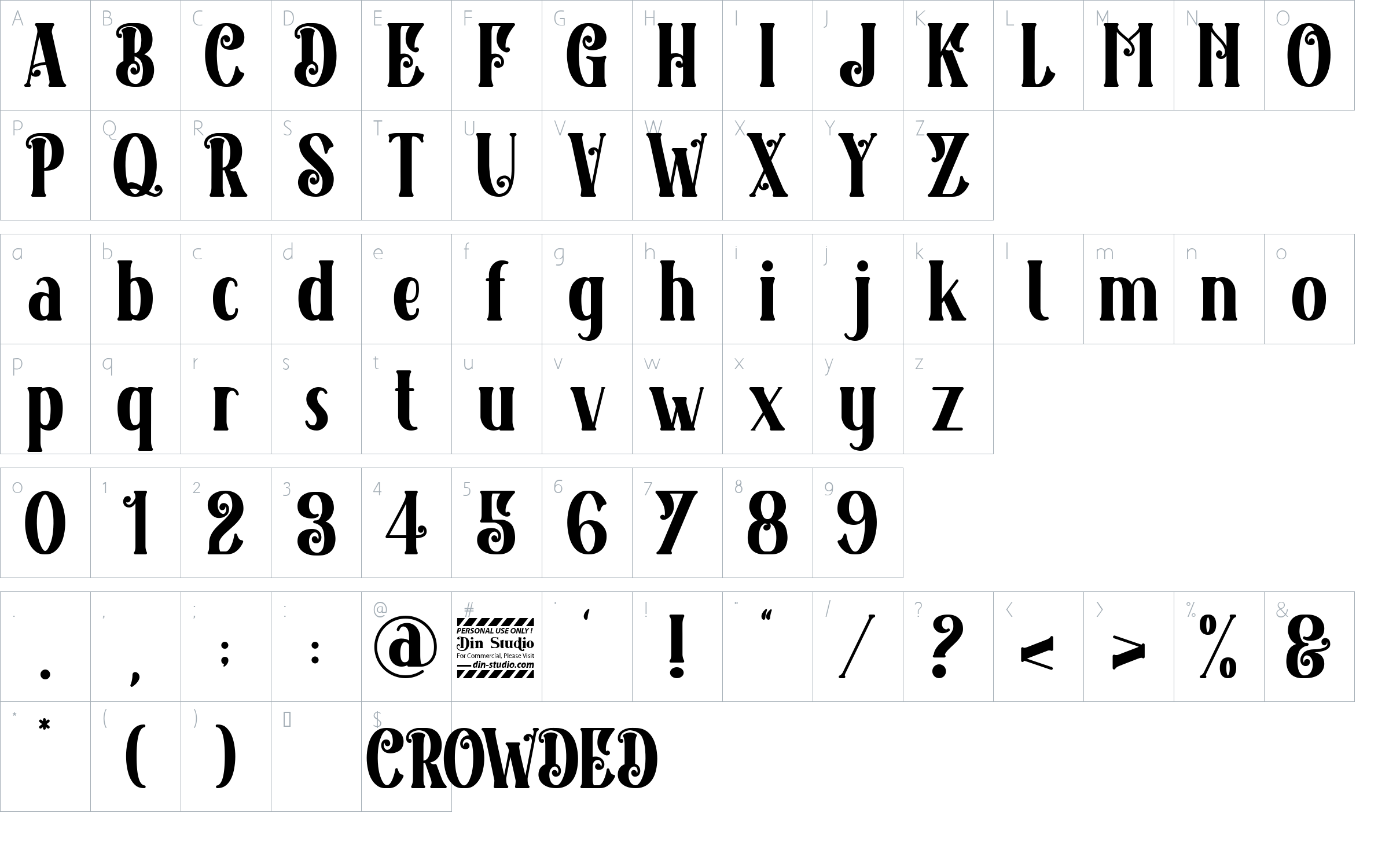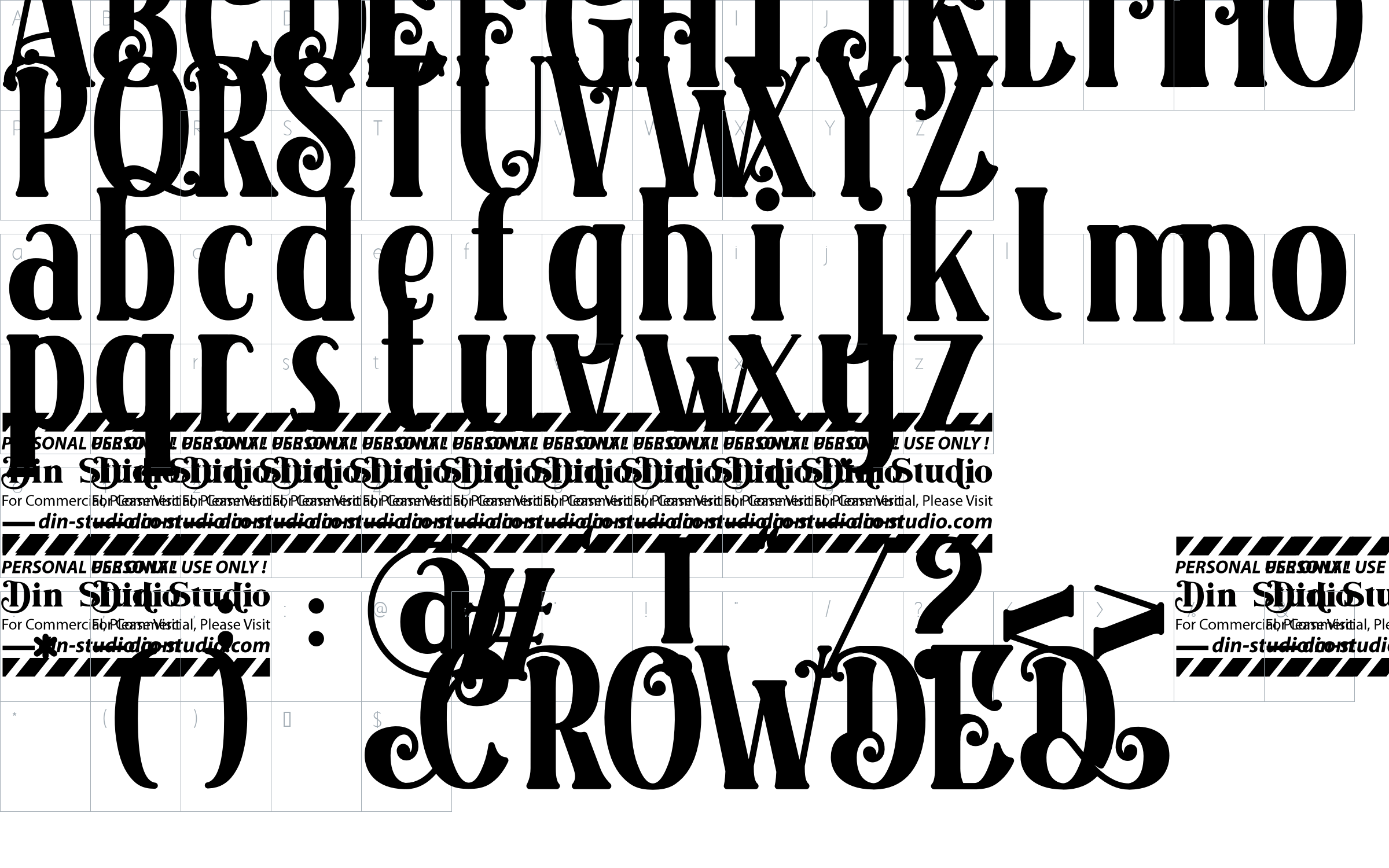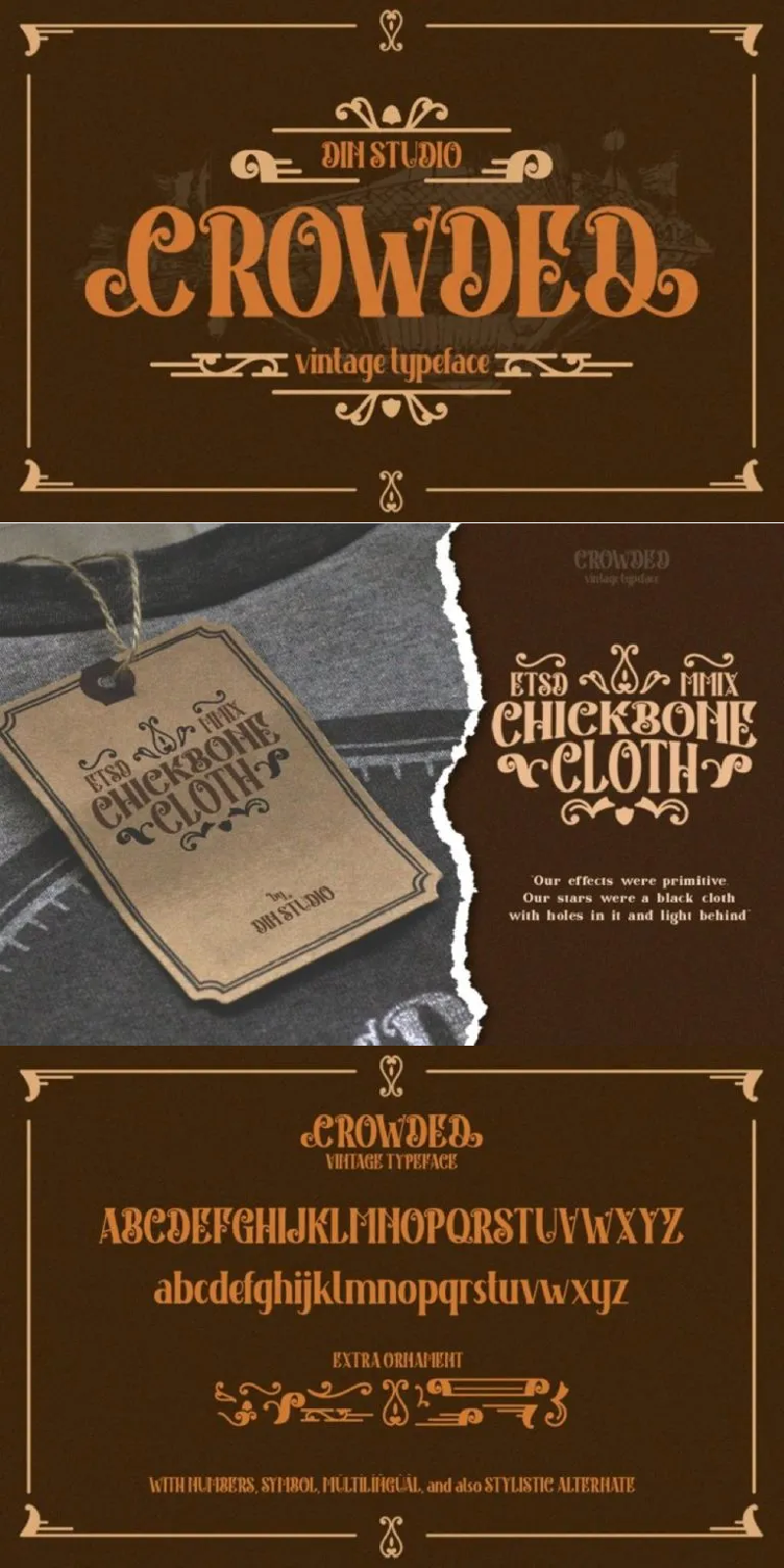
CROWDED Font
About CROWDED
Crowded rounded vintage font. It was created by our talented artist with a full passion for vintage display. The font perfectly used on your website, media social, printed product, quotes, mugs, logos, poster, branding, t-shirt, and so much more!
You will find a fresh vintage sensation. Visit our gallery and enjoy the previews.